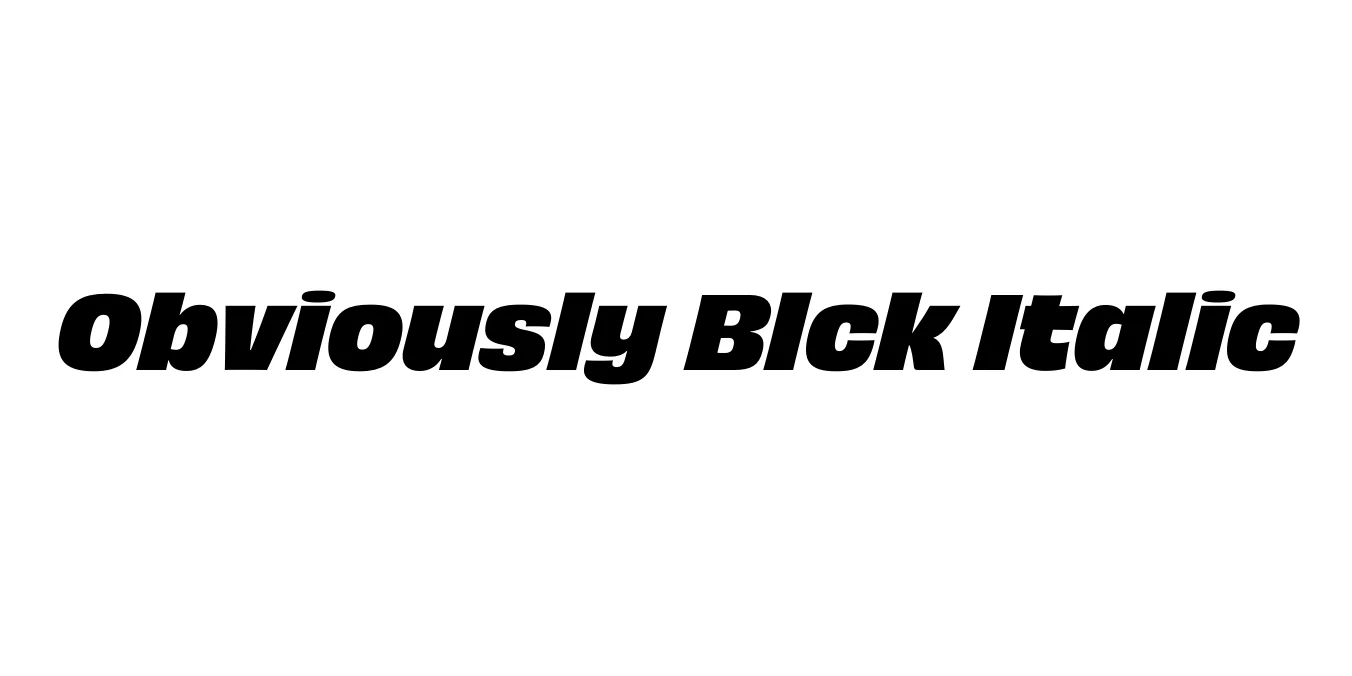
Obviously Blck Italic
Designed by James Edmondson
Obviously Blck Italic is a standout weight within the massive Obviously family, designed by James Edmondson and released through OH no Type Co in 2018. The project began as an exploration of the common aesthetic found in vinyl signage and vernacular lettering, aiming to create a typeface that felt both ubiquitous and uniquely full of character. Unlike many sterile digital sans serifs, Obviously embraces the quirks and personality of physical letters, offering a wide range of widths and weights that provide designers with immense flexibility.
The Black Italic variant is particularly aggressive and high-impact, featuring a sharp slant that conveys speed and urgency. It manages to maintain a sense of structural integrity even at its heaviest weight, making it an excellent choice for contemporary editorial design and high-energy branding. Its thick strokes and tight counters are optimized for large-scale application, ensuring that the typeface commands attention wherever it is used.
Obviously Blck Italic Best Uses
Perfect for heavy headlines, pull quotes, and magazine covers that require a bold, modern voice.
Ideal for creating distinctive logos for sports, fashion, or tech brands seeking a high-energy identity.
Highly effective for large-scale posters, billboards, and digital banners that need to be legible and striking.
Great for eye-catching thumbnails and bold graphic overlays on platforms like Instagram and YouTube.